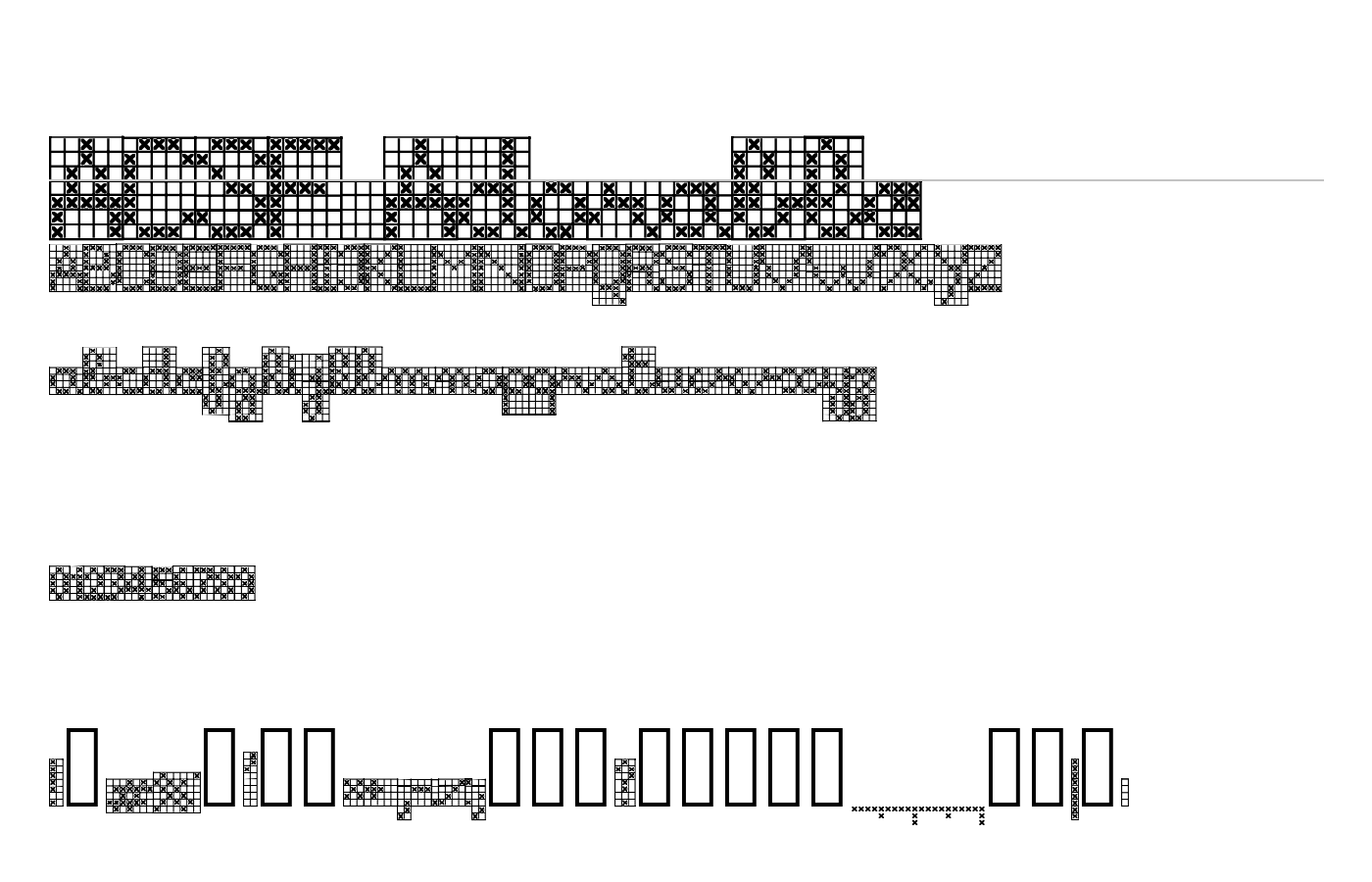
ACSF Adorable Font is a playful and charming pixel-style sans serif that evokes a retro, digital feel with its blocky, grid-based letterforms. Its consistent stroke weight and geometric shapes make it perfect for creative, fun designs, informal branding, or projects needing a nostalgic video game or pixel art vibe. This font works especially well in headlines, logos, and digital media where a bold yet whimsical atmosphere is desired.
ACSF Adorable Font